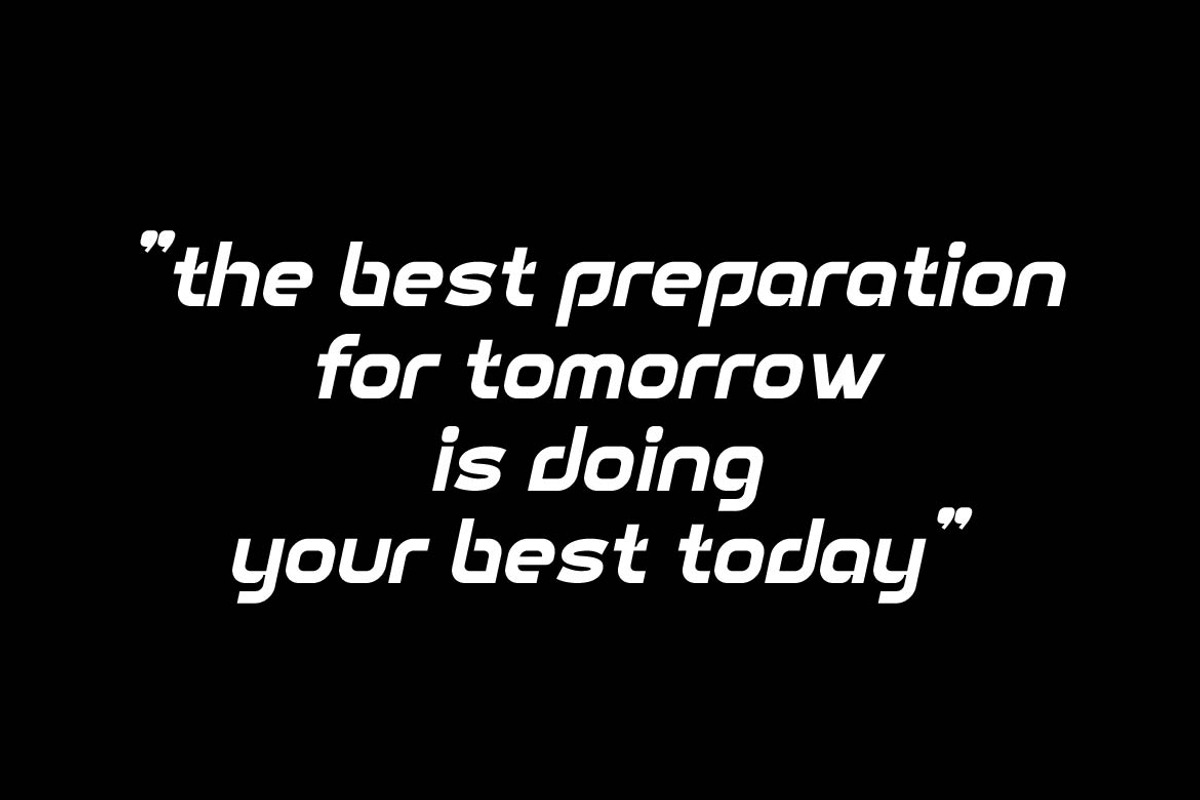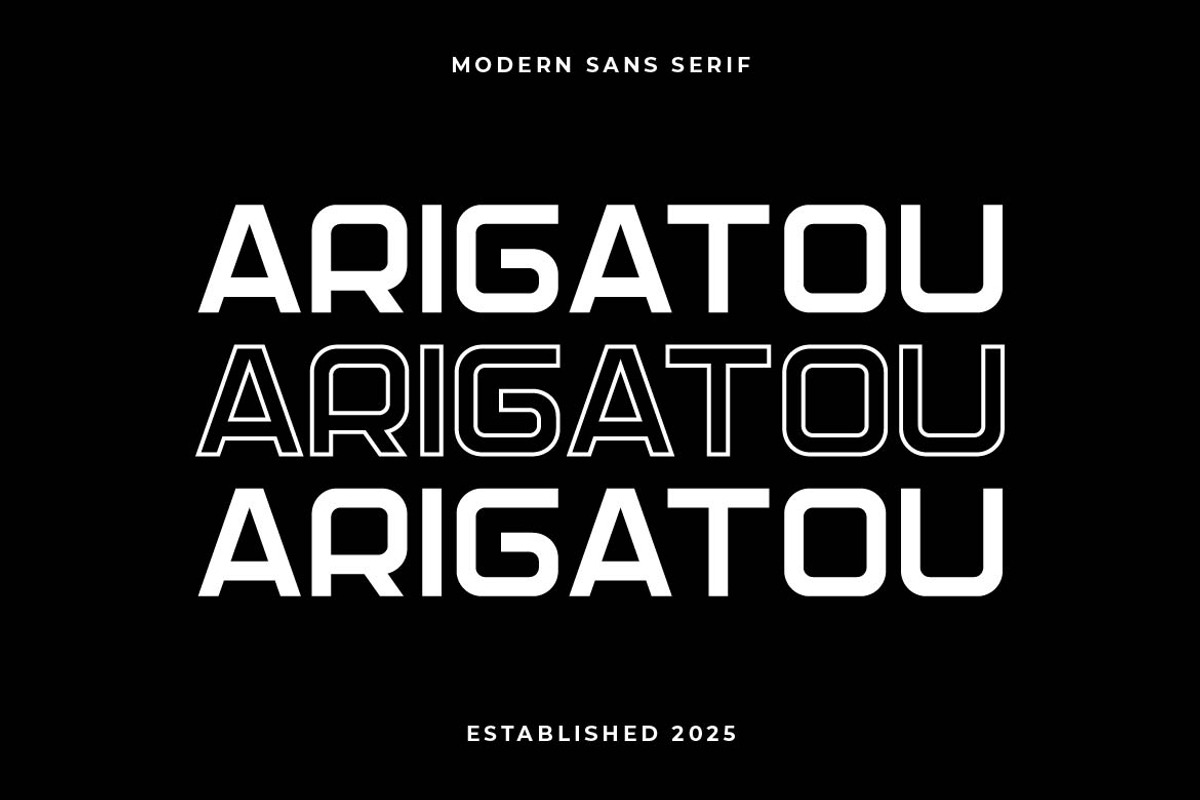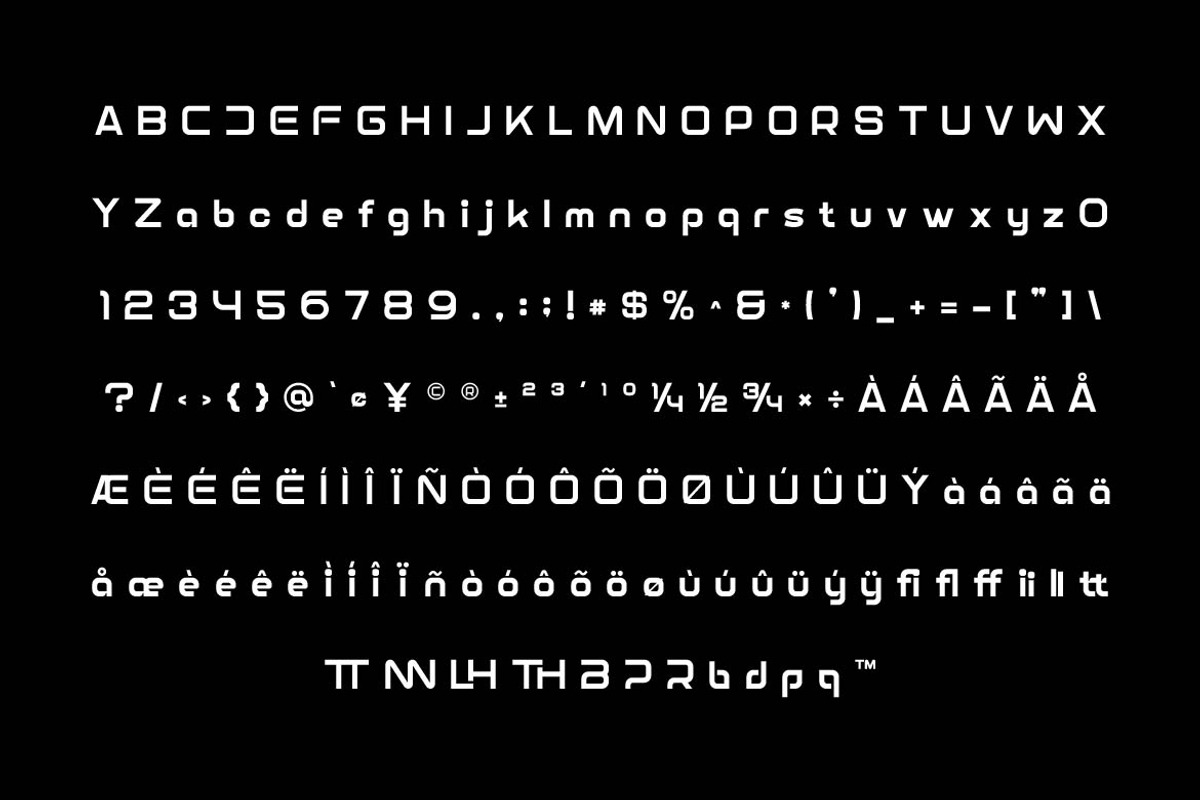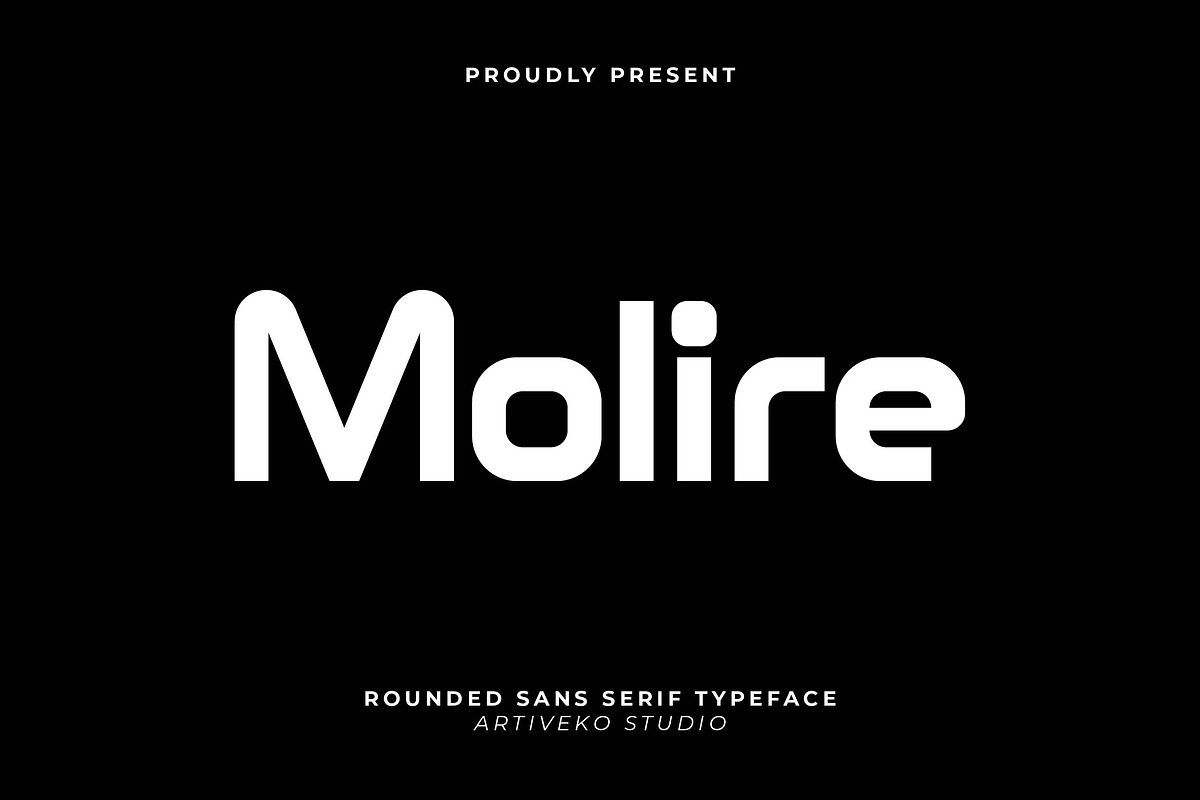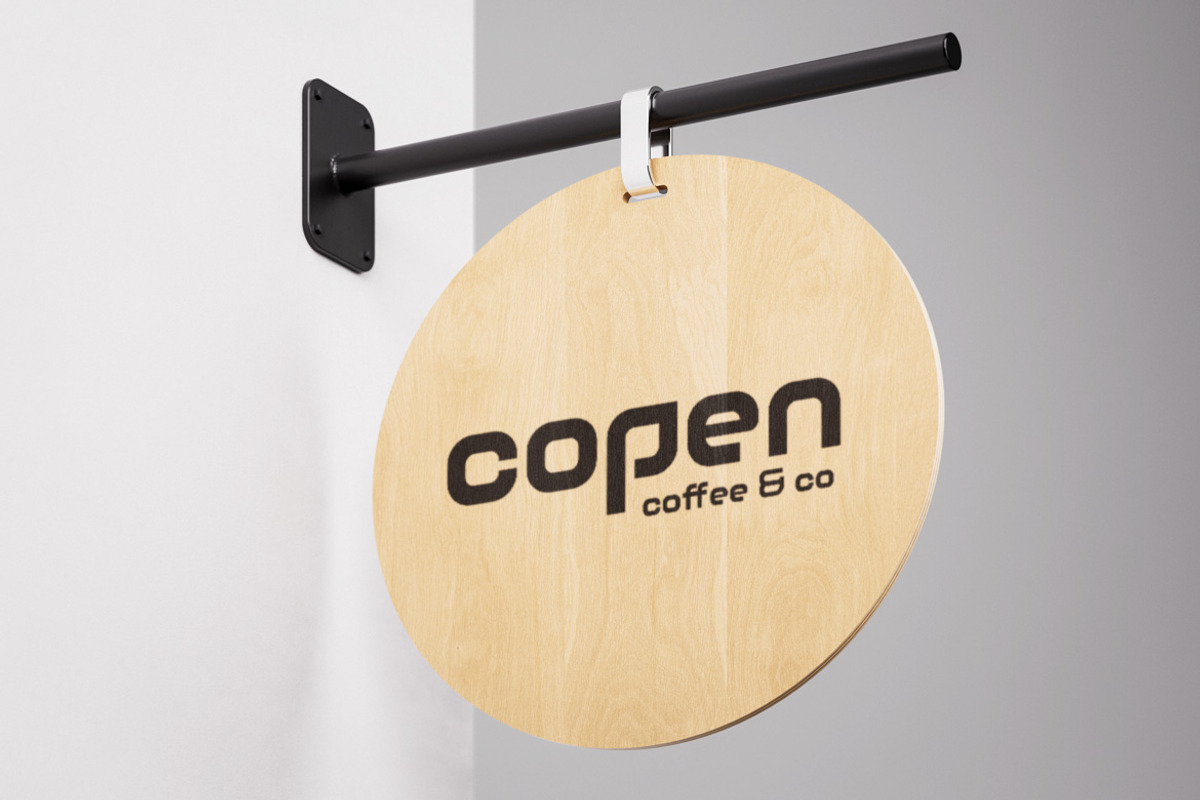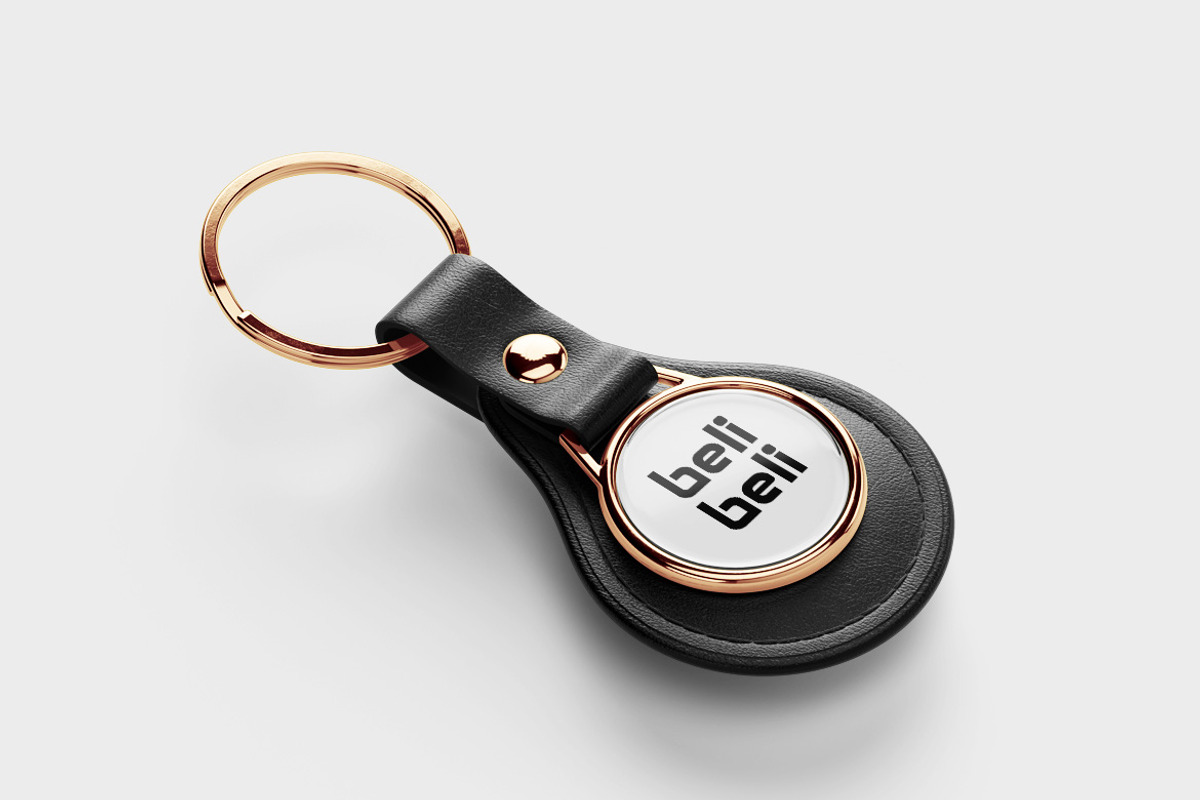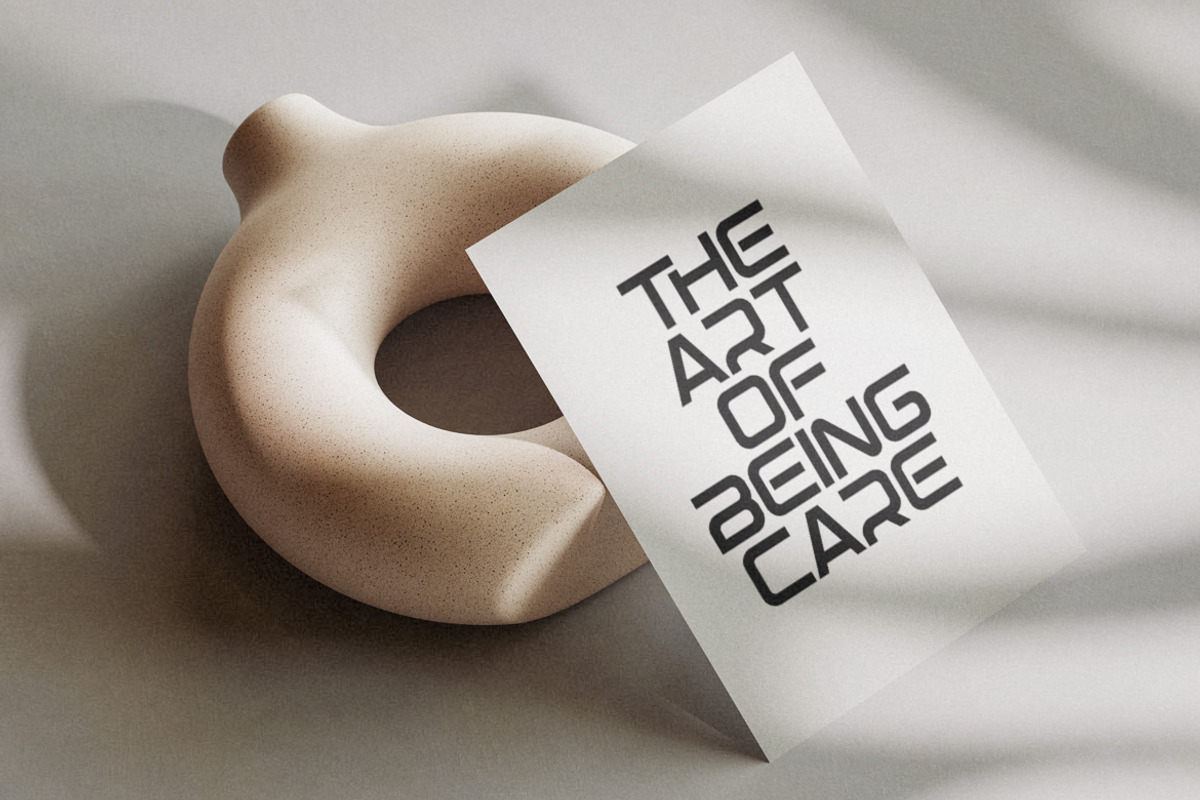
Molire Creative Sans Serif
Molire is a stylish creative sans serif font designed to bring fresh character and contemporary charm into any project. With its clean lines, soft geometric structure, and subtle artistic touches, Molire delivers a balanced mix of simplicity and personality — perfect for modern branding, editorial layouts, logos, packaging, and social media visuals.